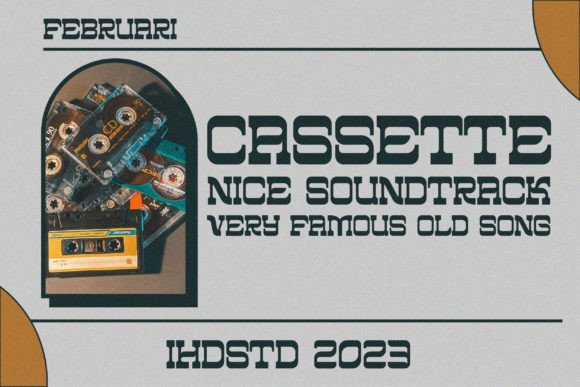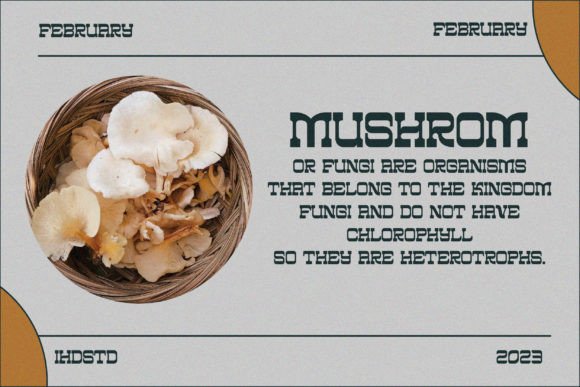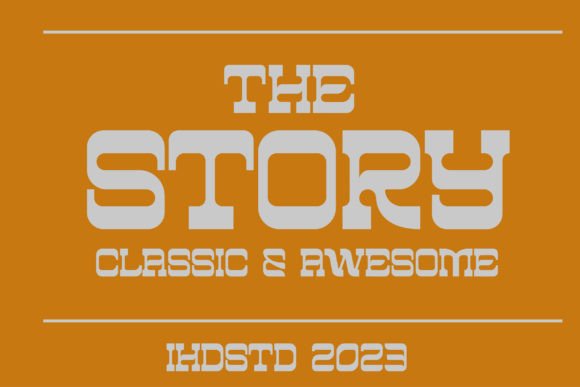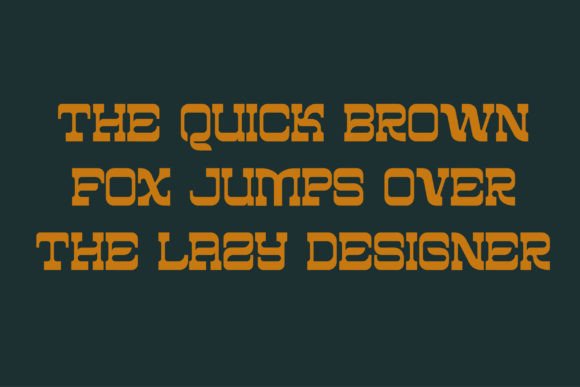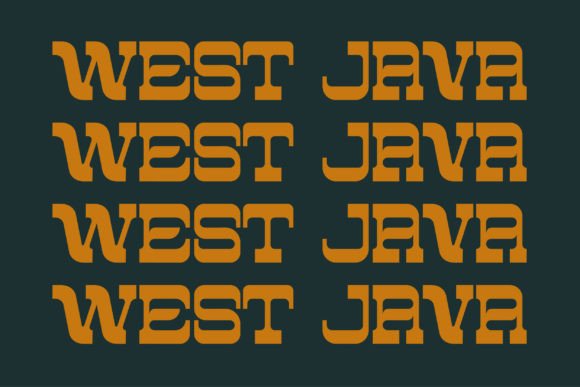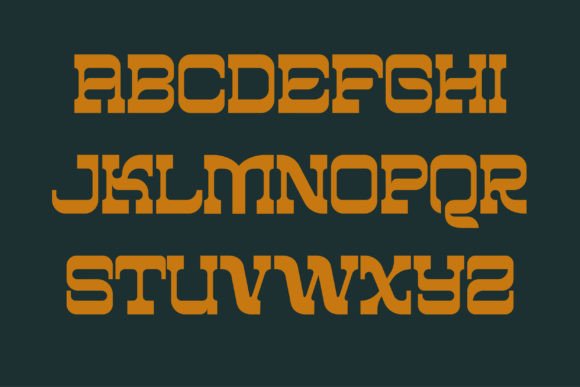
The Ultimate Statement Font: Discover the Power of Borgenk
I’ll never forget the design project that led me to discover Borgenk. I was working on a branding campaign for a trendy boutique hotel, and I needed a font that would make a statement. I spent hours scouring the internet, trying out different fonts, but nothing seemed quite right. That was until I stumbled upon Borgenk – an exclusive display font that instantly caught my eye.
With its bold and eye-catching characters, Borgenk was the perfect solution to make the hotel’s branding stand out from the crowd. The decorative elements added a touch of flair, making it an ideal choice for headlines, titles, and any design project where you want to make a lasting impression.
An Honest Review of Borgenk
What I Love About Borgenk ✨
• ✅ Unique and bold design that grabs attention
• ✅ Decorative elements add a touch of elegance and sophistication
• ✅ Perfect for making a statement in headlines, titles, and design projects
• ✅ Highly versatile and can be used in various design contexts
• ⚠️ May not be suitable for body text due to its bold and decorative nature
• ⚠️ Limited legibility at small font sizes
The Designer Inspiration Behind Borgenk
Borgenk was inspired by the avant-garde art movement of the 20th century. The font’s designer wanted to create a font that would capture the essence of this movement – bold, daring, and unconventional. The result is a font that’s both eye-catching and elegant, perfect for making a statement in any design project.
Font Name Borgenk Font
Author IHD.STD
Q: What is the best way to use Borgenk in my design project?
A: The best way to use Borgenk is as a display font for headlines, titles, and any design project where you want to make a statement.
Q: Can I use Borgenk for body text?
A: While Borgenk is a beautiful font, it may not be suitable for body text due to its bold and decorative nature. It’s best used for headlines and titles.
Q: Is Borgenk a versatile font?
A: Yes, Borgenk is a highly versatile font that can be used in various design contexts, from branding and advertising to packaging and editorial design.